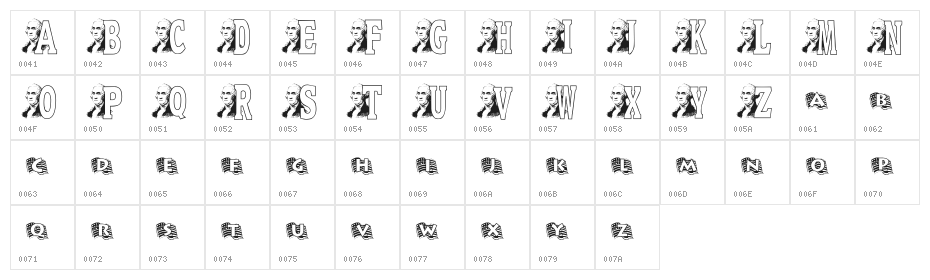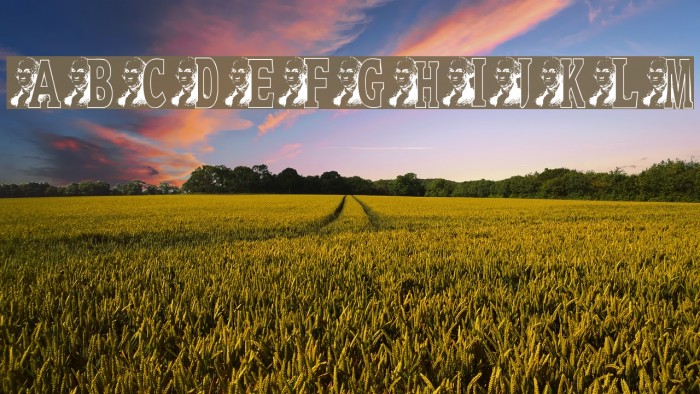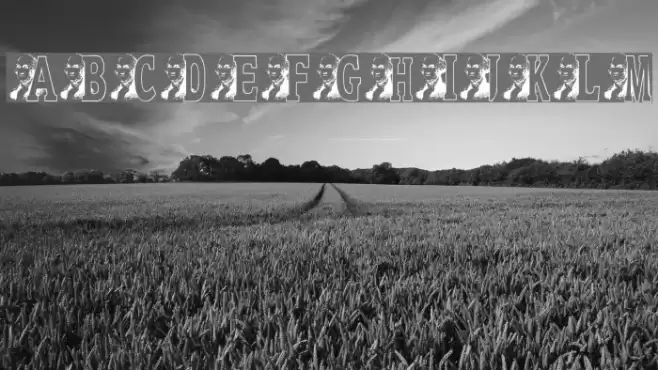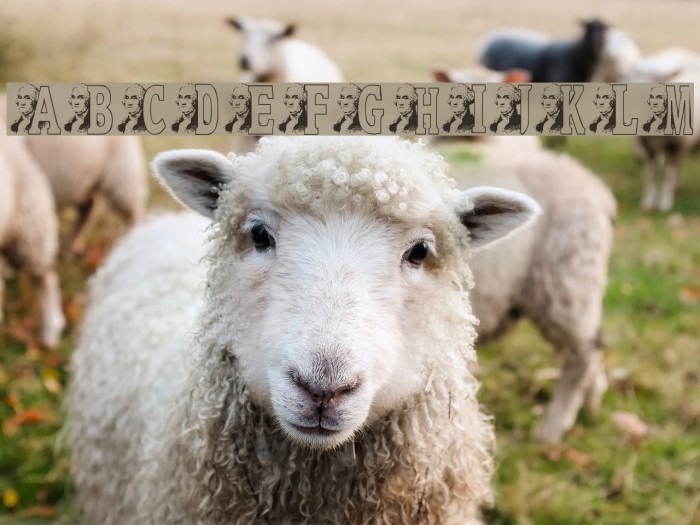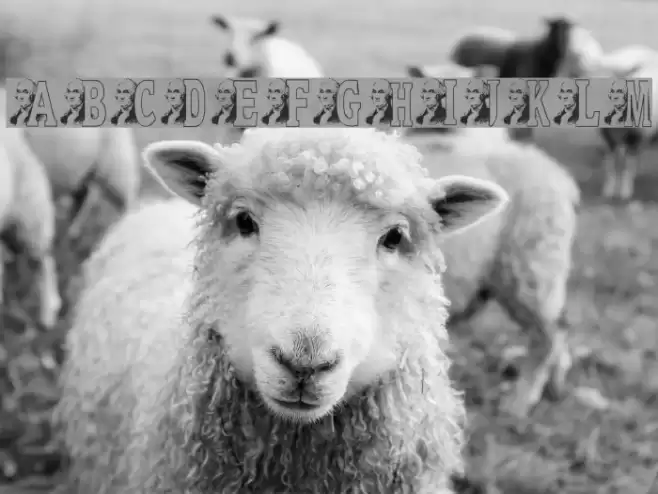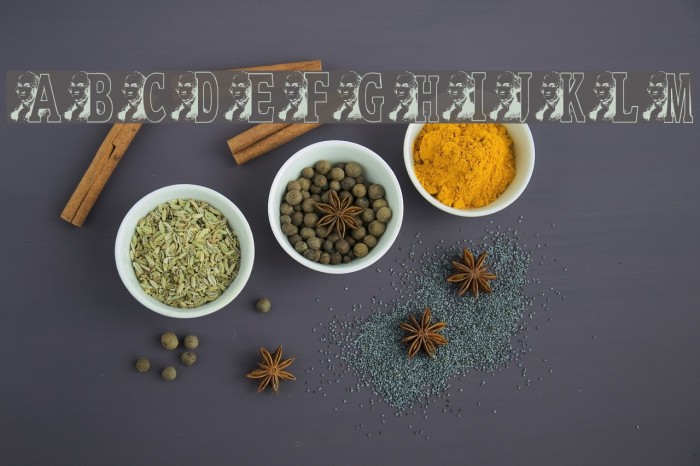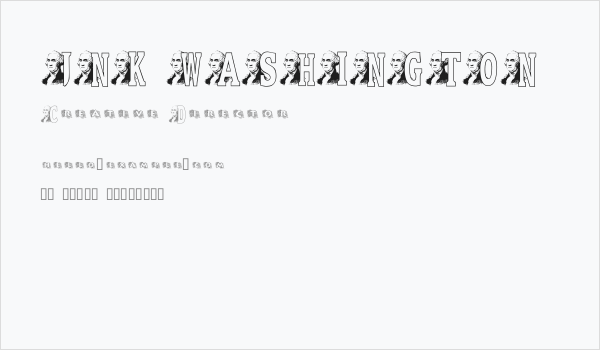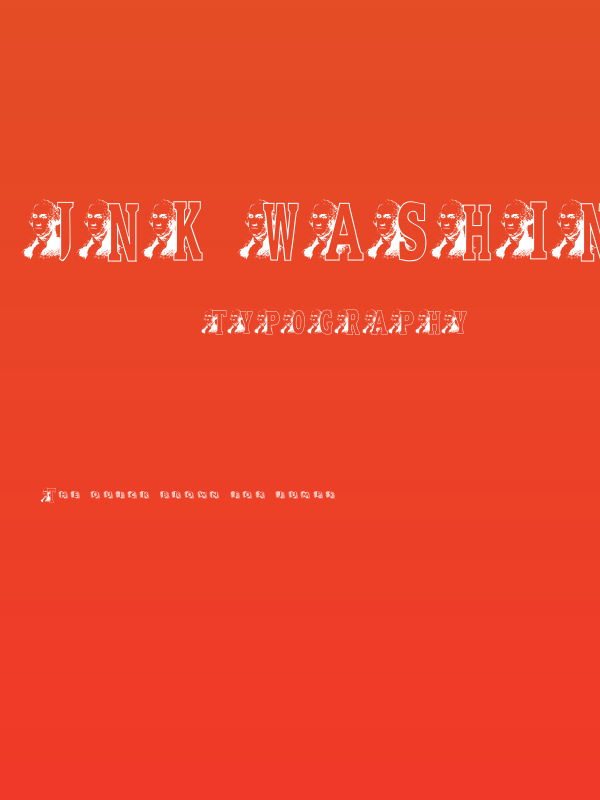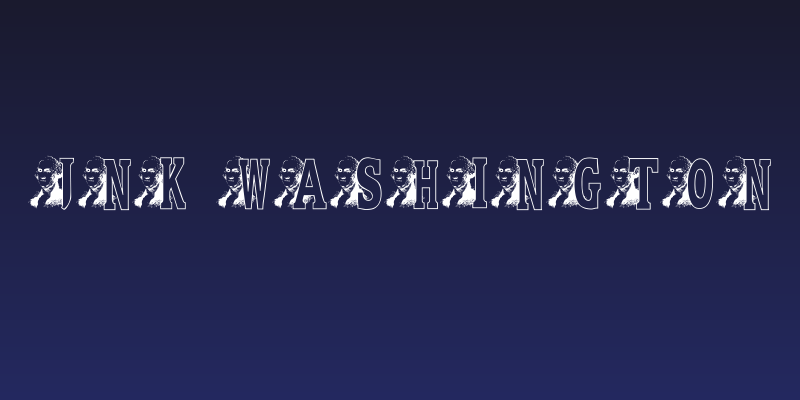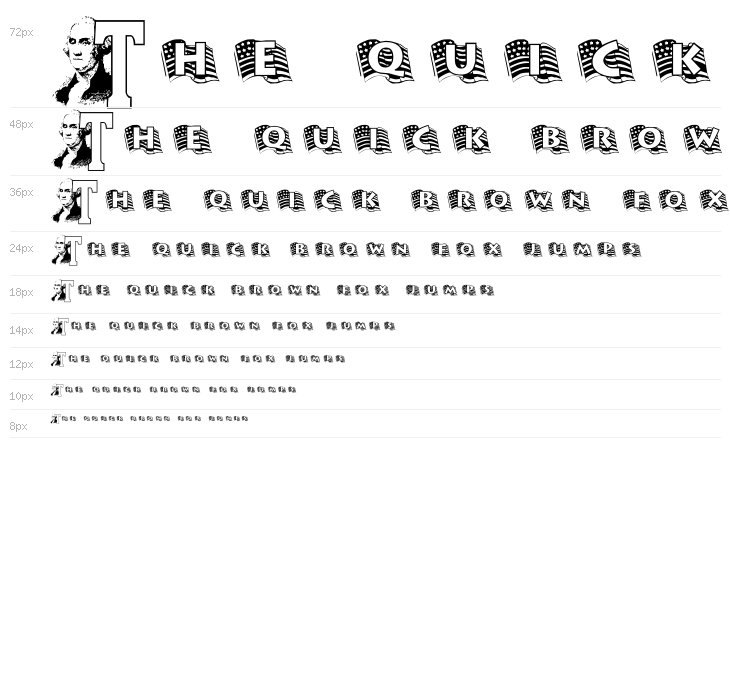
JNK WASHINGTON Font
JNK WASHINGTON Description
This decorative font features a unique design where each character is integrated with a patriotic theme. The uppercase letters are adorned with a stylized portrait of a historical figure, adding a classic and vintage touch. The lowercase letters incorporate elements of a waving flag, enhancing the theme with a sense of movement and dynamism. The numbers and special characters are presented in a bold, outlined style, maintaining consistency with the overall aesthetic. This font is ideal for projects that require a strong, thematic presence, such as patriotic events, historical presentations, or themed branding.
| Proposed Projects | Ideal for patriotic events, historical presentations, themed branding, and decorative posters. |